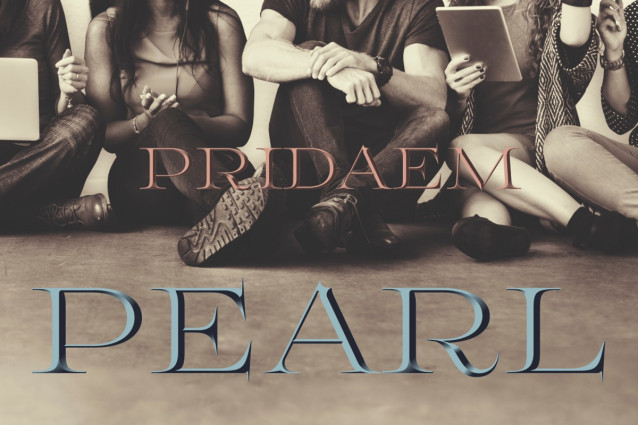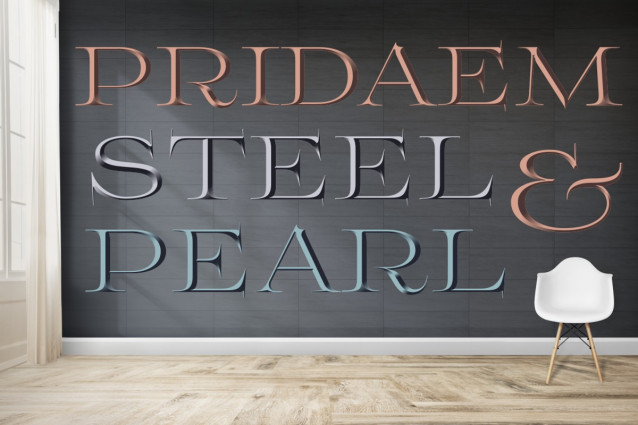
PridaEm Font
PridaEm Font – A set of colored fonts, created with inspiration from metallic shine: aluminum, beryl, copper, gold, pearl and steel. Vector colorful letters allow you to create headlines, banners or advertising slogans in any size.